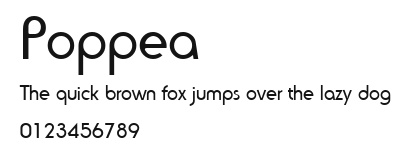
• Font Name: Poppea
Poppea.ttf is a modern, elegant sans-serif font designed for ultimate readability and visual harmony. Perfect for branding, headlines, web design, and print materials.